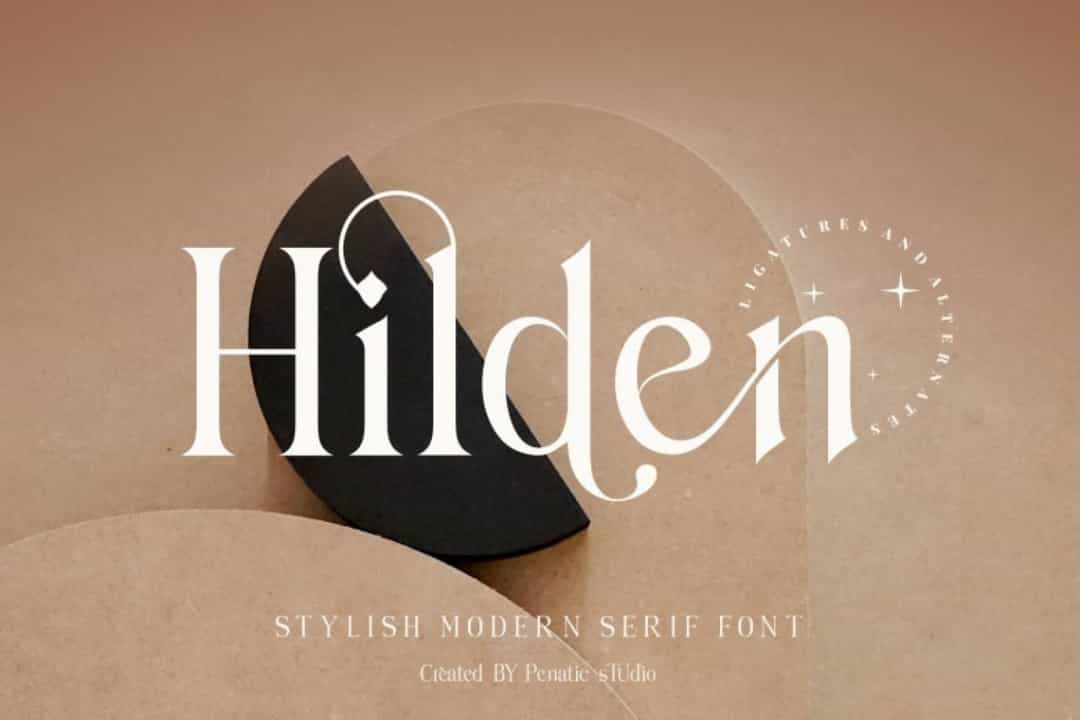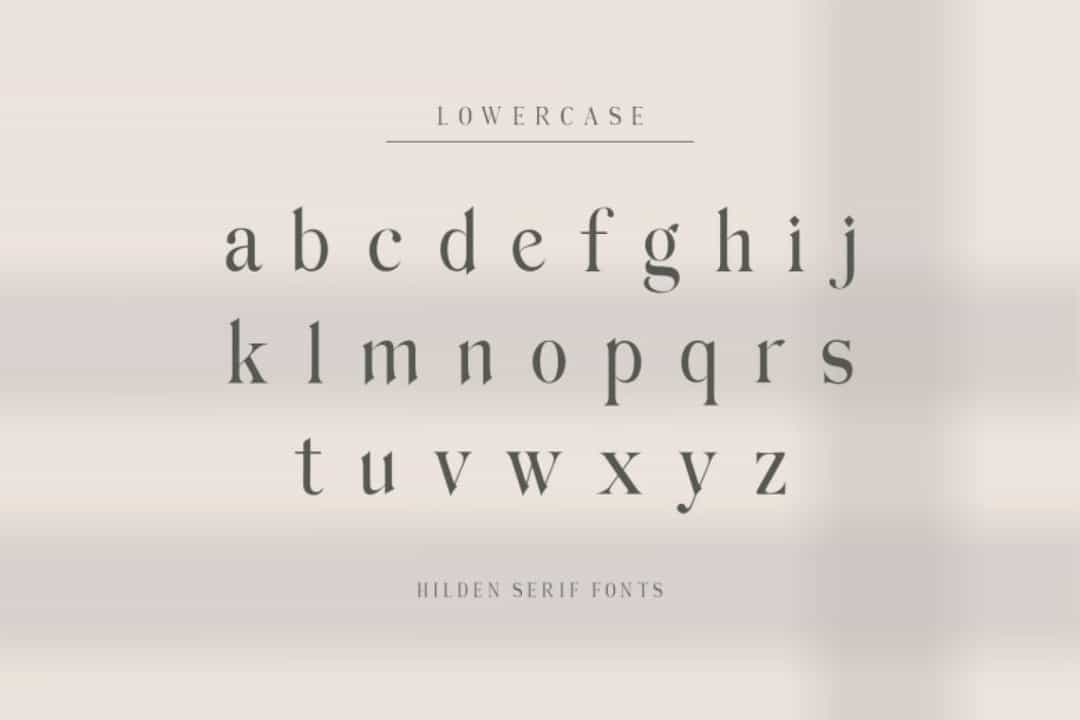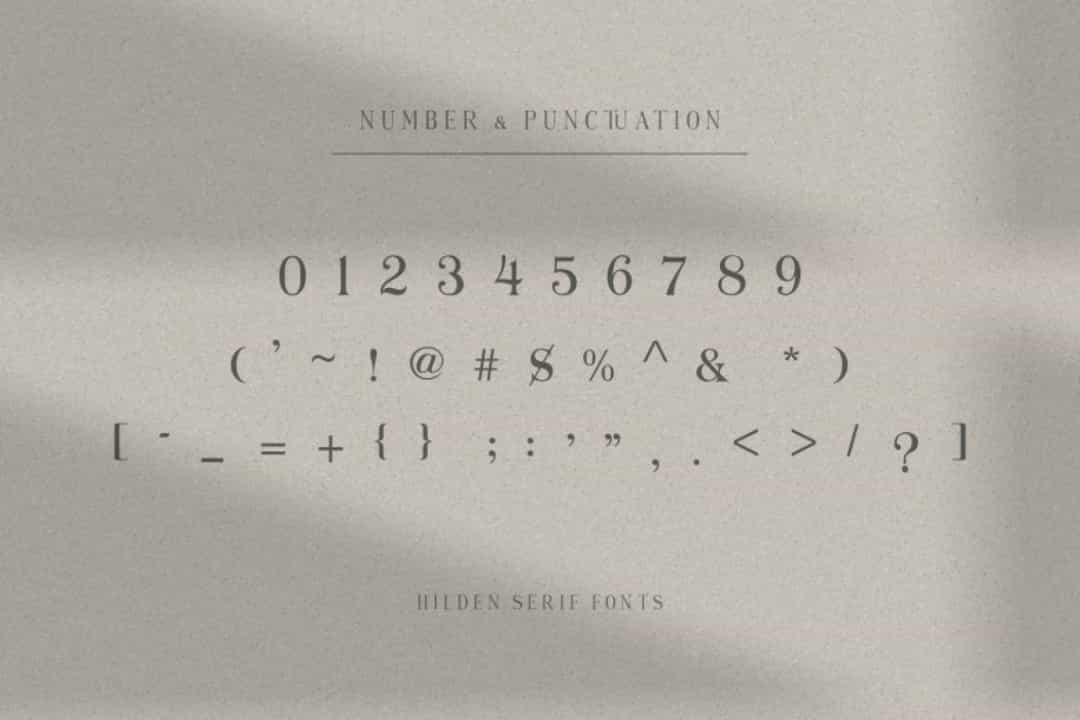
Hilden Font is an elegant serif typeface perfect for use across a range of applications – logos such as branding clothing or business cards, magazine packaging designs, websites or magazine covers, headlines or as text overlays in any image background or editorial project. Plus it boasts contemporary ligatures and beautiful alternative fonts!